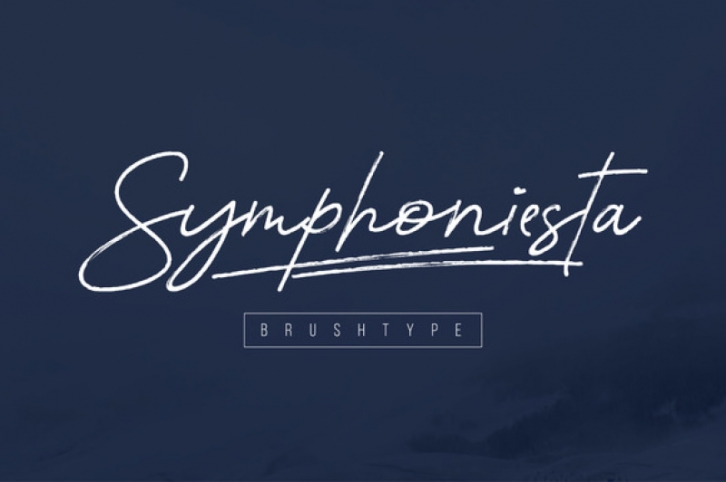
Symphoniesta Brushtype is a script font that helps you to create logos, signatures, and all things of course. Christmas, autumn, and winter is the inspiration.
Symphoniesta had two families, namely: Symphoniesta Regular, and Symphoniesta Upright. In addition, the font is also equipped with a swash which will add to the aesthetics of your design.